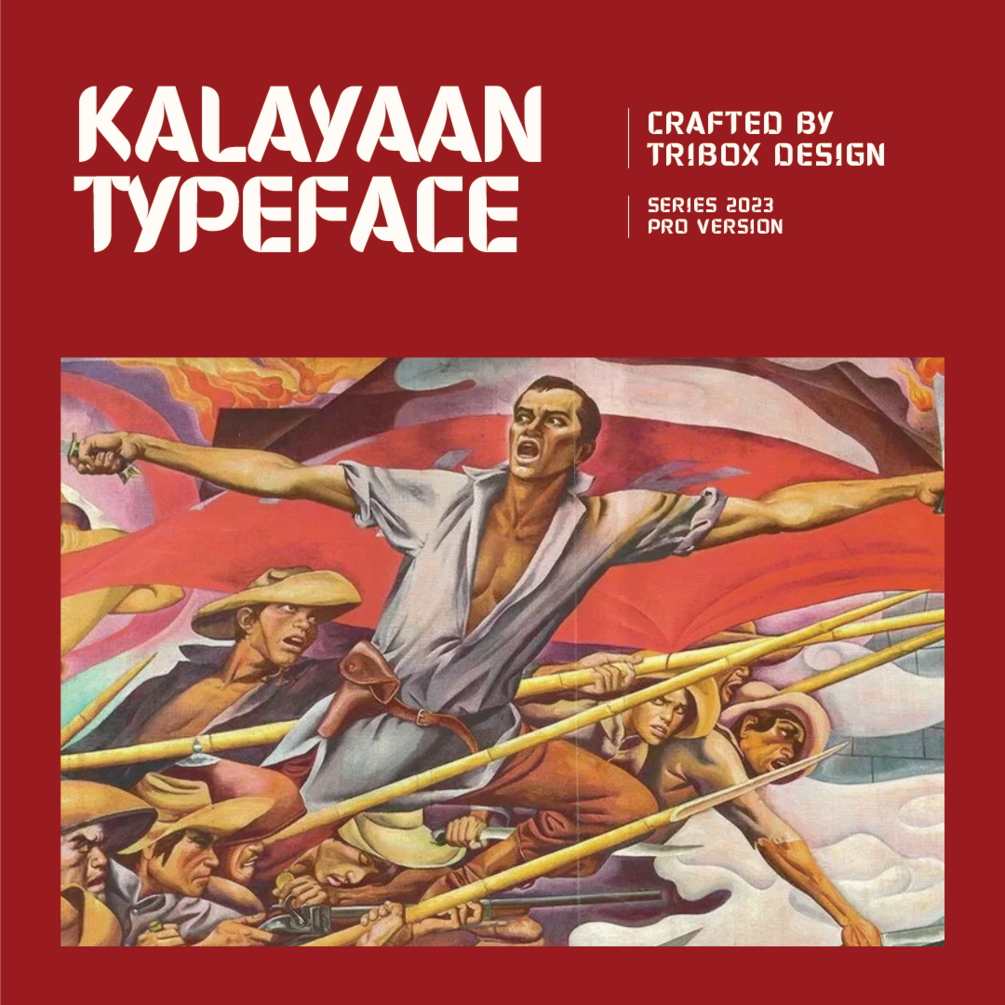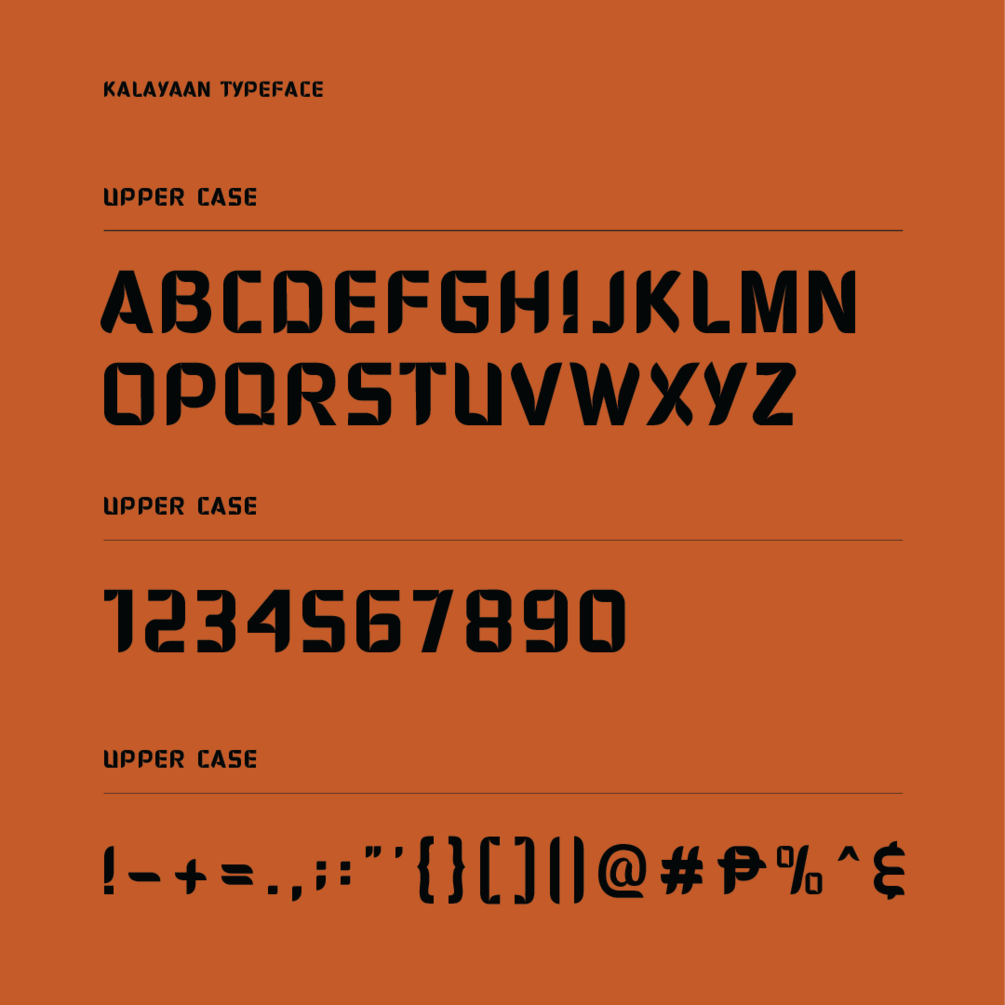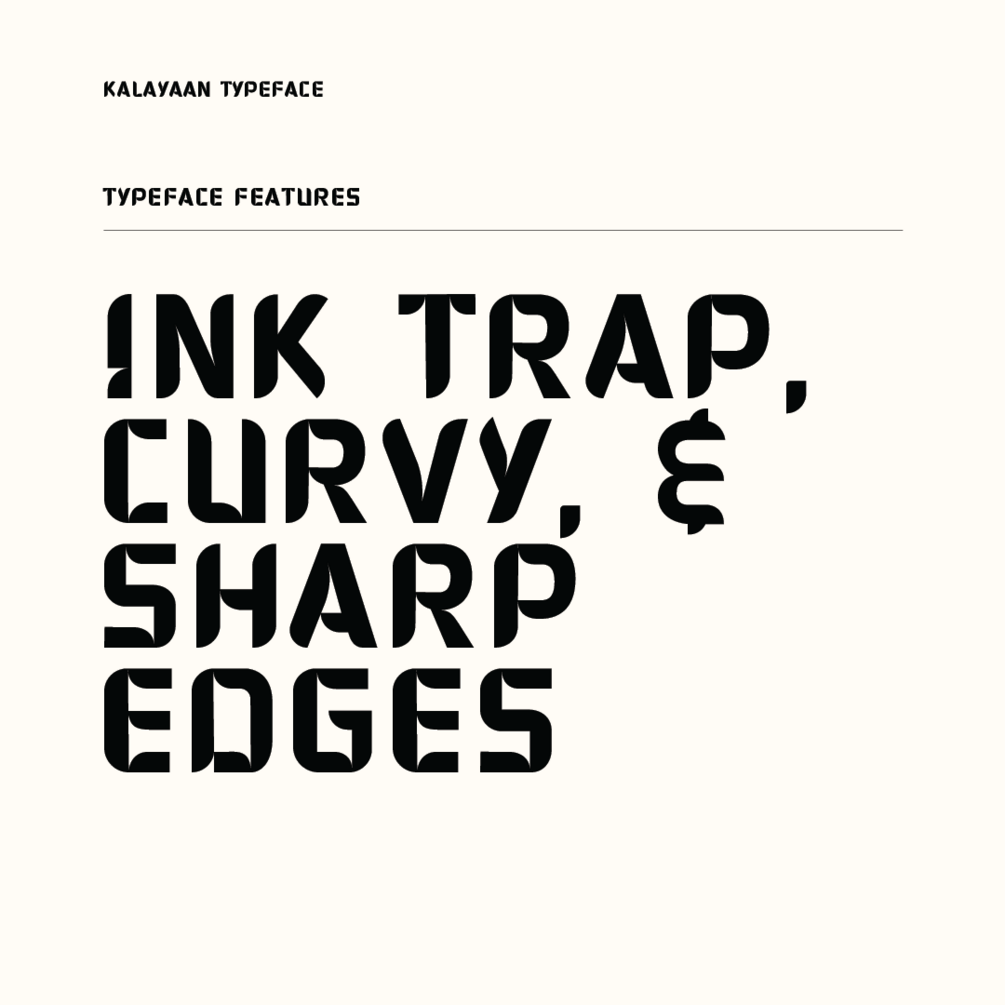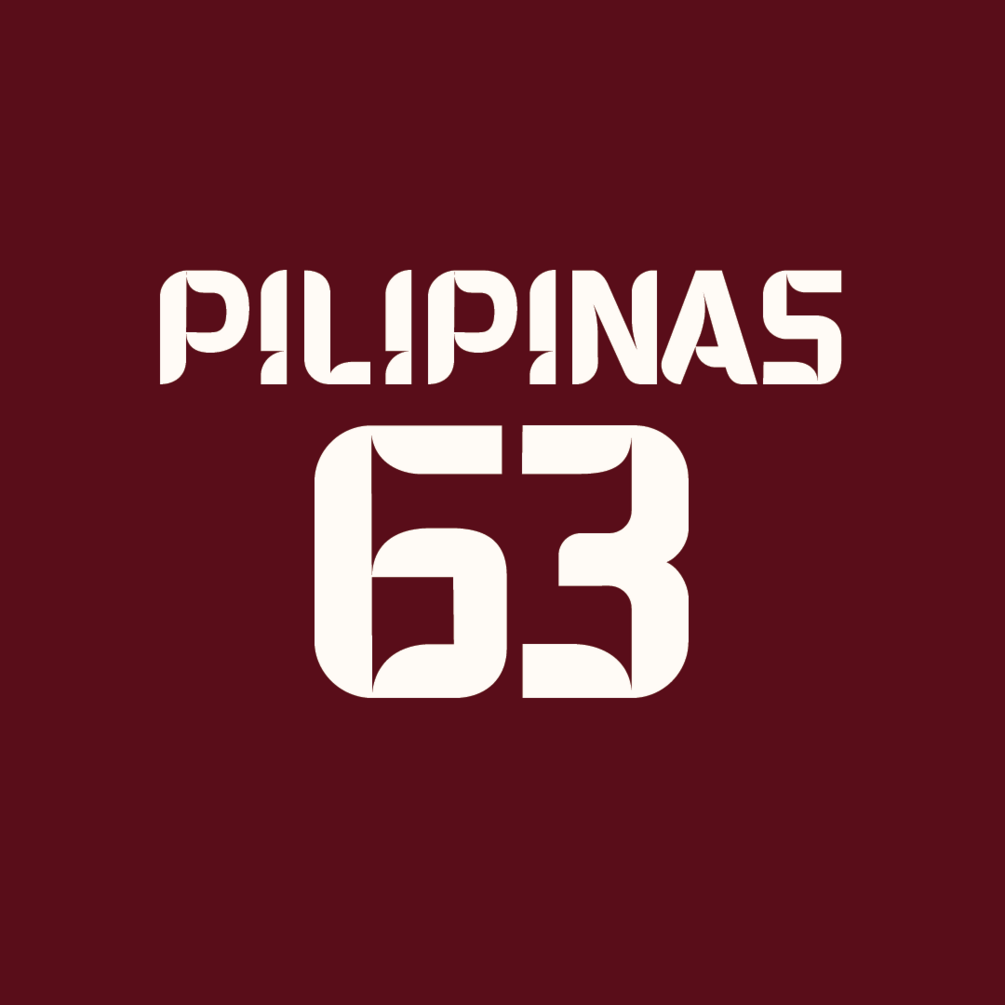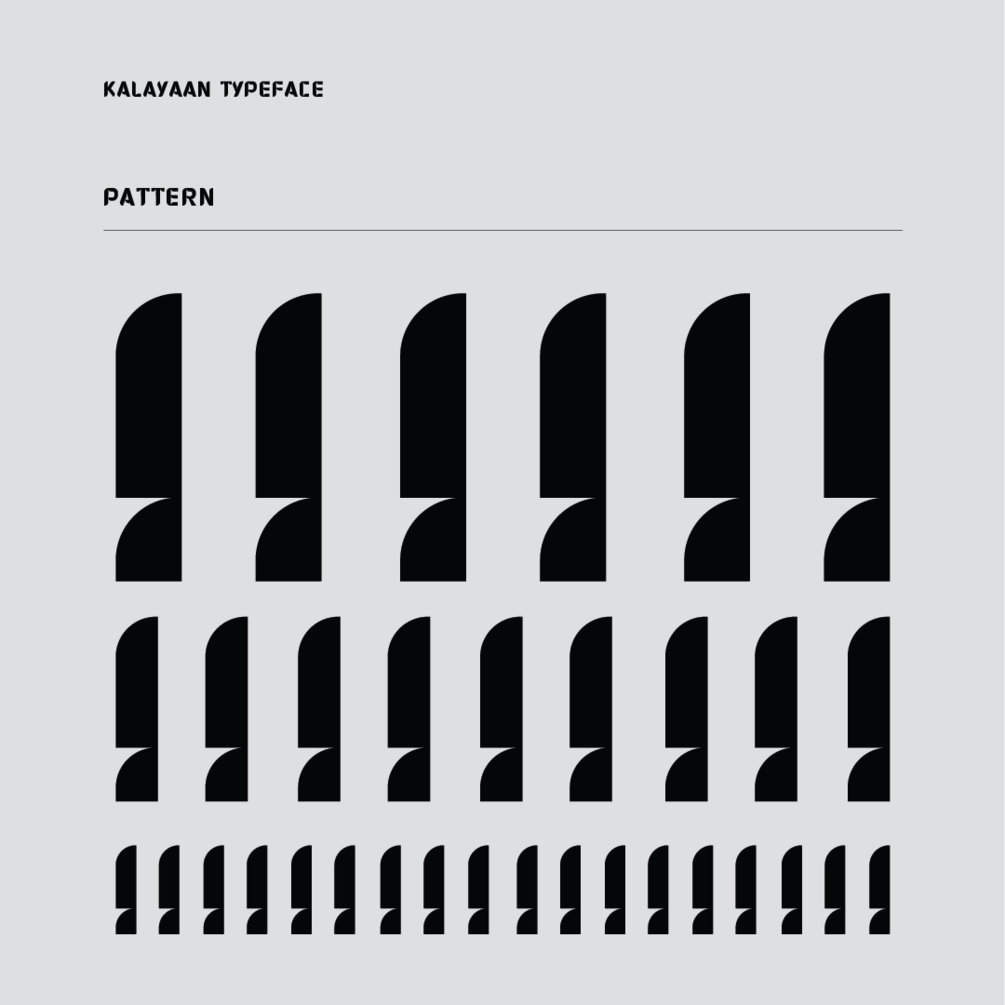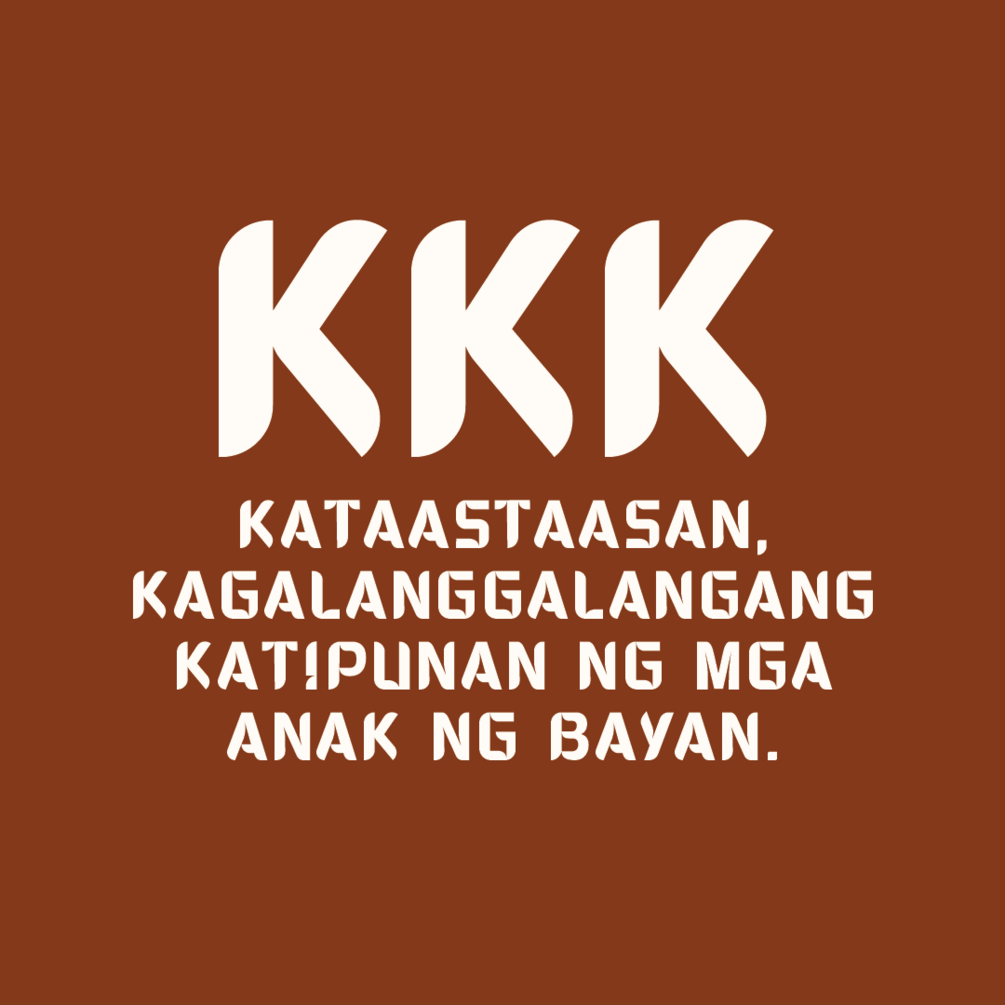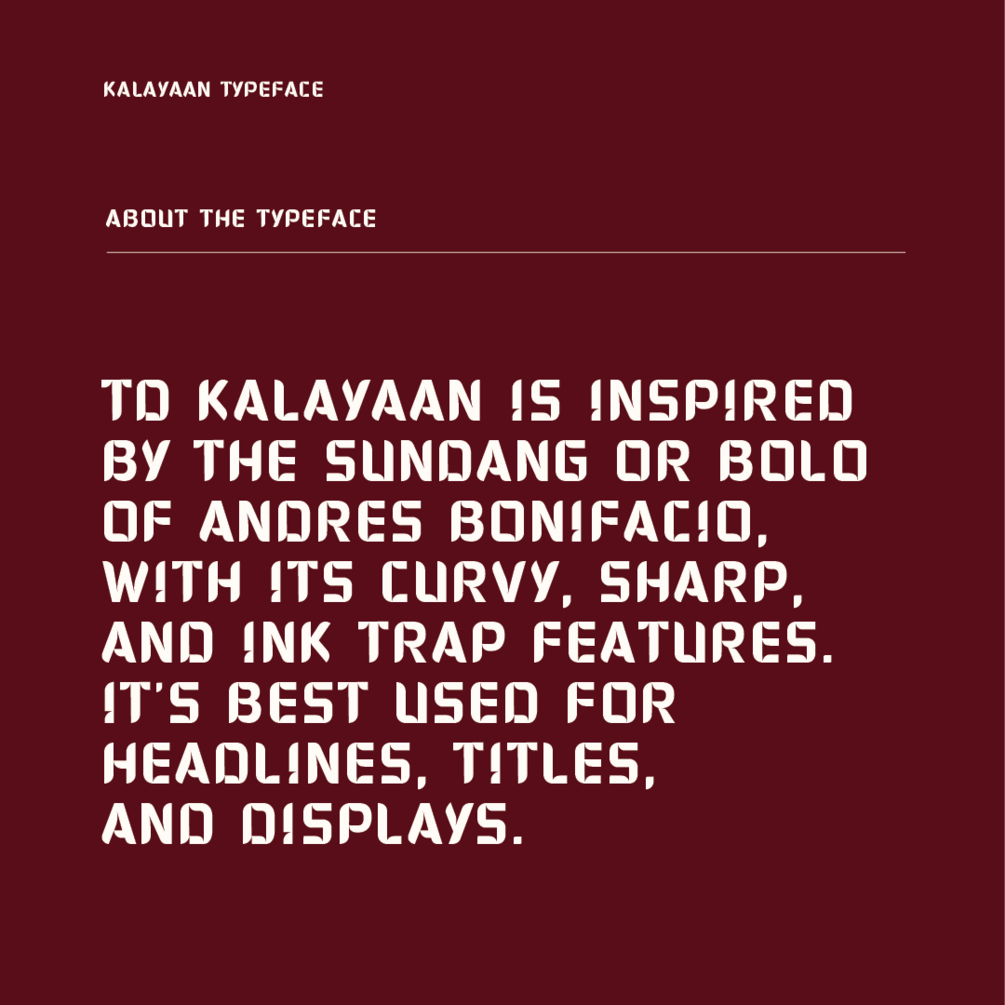
TD Kalayaan Pro
TD Kalayaan is inspired by the Sundang or Bolo of Andrés Bonifacio, with its curvy, sharp, and ink trap features. It’s best used for Headlines, Titles, and Displays.
Independence Day is approaching! Last year, we created a font called TD Kalayaan, inspired by Andres Bonifacio's "sundang". We were taken aback by the warm support and how many of you used it in your personal projects and applications. Surprisingly, with the support of Canva, it gained worldwide recognition and is available for use anytime.
In line with our culture, we believe in the power of feedback. We value your input, which is why our team has tirelessly worked on improving the TD Kalayaan font to make it more dynamic for all kinds of mediums.
We have made updates to the kerning, tracking, balanced the glyphs, and enhanced its overall aesthetic appeal. We strive to ensure it looks its best.
Product Updates:
• Kerning
• Glyphs Balanced
• Simplified
• Aesthetic 80%